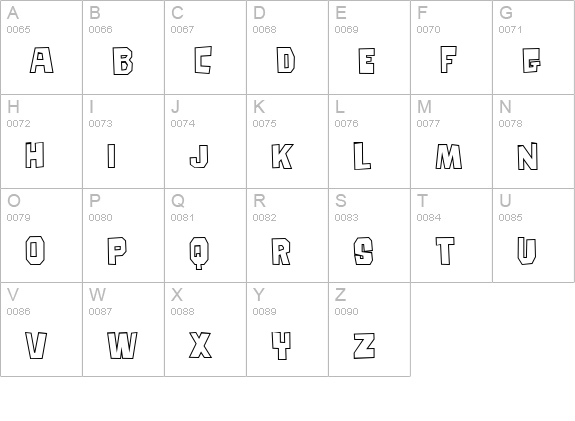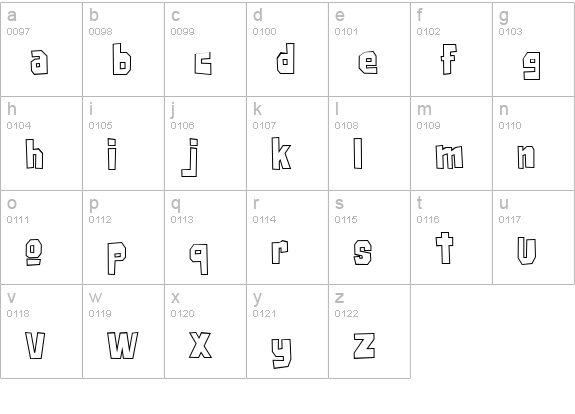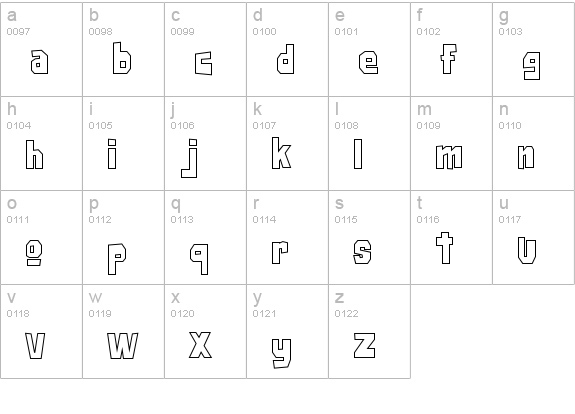
Big Chump BTN Cond Out is a distinctive, condensed-width variant in the Big typeface family \xE2\x80\x94 well suited to design and typography projects.
Big Chump BTN Cond Out font is a bold and eye-catching typeface that exudes a sense of strength and confidence. With its thick, condensed letters and distinctive outline, this font is sure to make a statement in any design project. Whether you're creating posters, logos, or headlines, Big Chump BTN Cond Out will command attention and leave a lasting impression. The best part? Big Chump BTN Cond Out font is available for free download at FontsMarket.com. This means you can easily add this striking font to your collection without any cost, making it a valuable addition to your design resources. Don't miss out on the opportunity to enhance your projects with the impactful and stylish Big Chump BTN Cond Out font today!